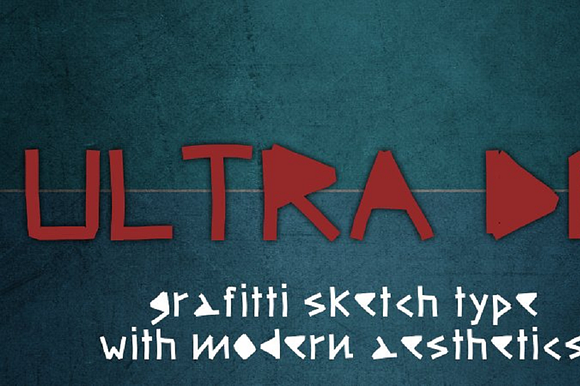
Ultra DM, a raw sketch type
Ultra DM font is a graffiti sketch typeface inspired by Depeche Mode's Ultra album. Ultra font can be used to give you modern aesthetics to your designs.
Ultra DM, a raw sketch type by Kreativ Font fits naturally into Branding, posters, packaging, typography.